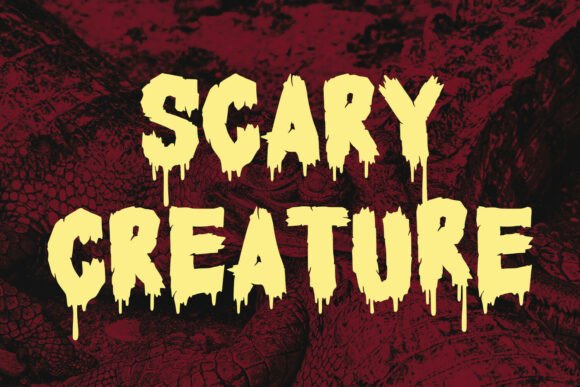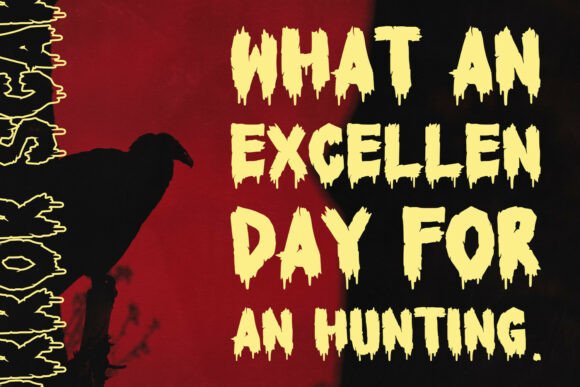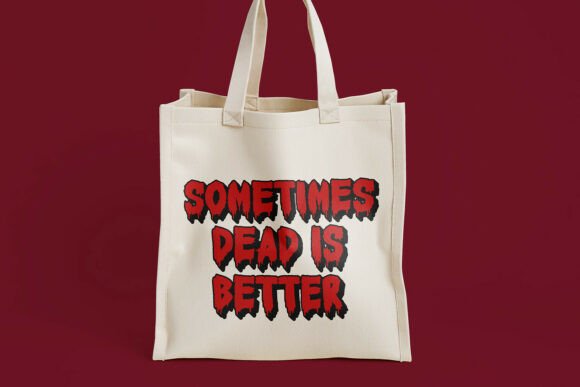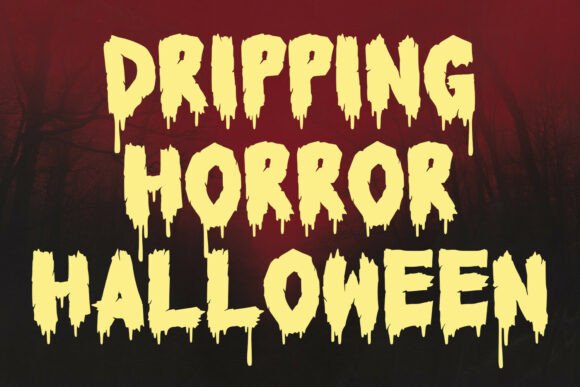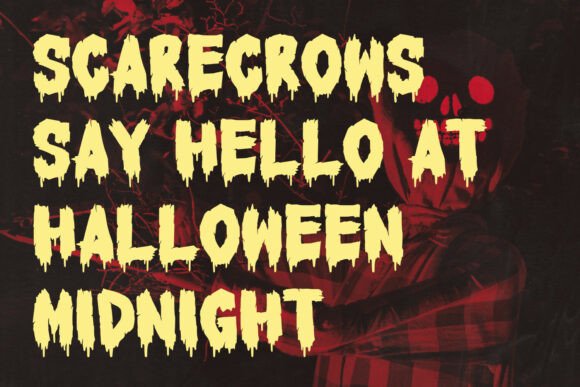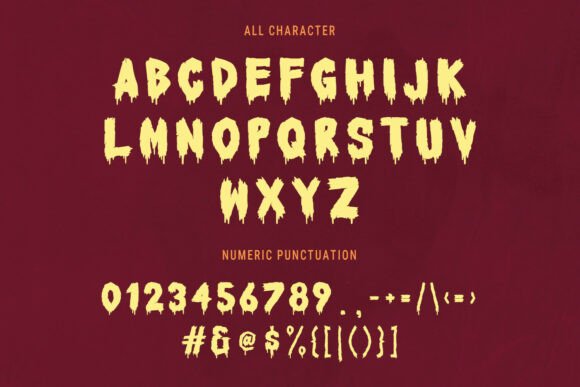
Introduction to Ivorm Font
As a designer, you’ve probably found yourself staring at a blank canvas, struggling to come up with the perfect design for your next creative project. The blank page stares back at you, taunting you with its emptiness. But what if you had a design resource that could bring your dark imagination to life? Enter the Ivorm Font, a bold horror dripping display font that’s guaranteed to send shivers down your spine.
With its thick, heavy strokes and melting drip details, the Ivorm Font perfectly captures the essence of gore, slime, and horror. Whether you’re working on a Halloween poster, a scary movie title, or a haunted house flyer, this font is sure to add instant shock value and a terrifying atmosphere to your design.
- Unique, modern design style that sets it apart from other fonts, making it perfect for designers seeking a distinctive look.
Honest Review: Ivorm Font
I recently had the chance to work with the Ivorm Font on a creative project, and I was excited to see how it would perform. Overall, I was quite impressed with the font’s capabilities.
- ✨ High quality design: The Ivorm Font has a clean and modern design that makes it perfect for a variety of creative projects.
- ⚠️ Limited character set: While the font has a wide range of characters, it’s not as extensive as some other fonts I’ve worked with.
- ⚠️ Not ideal for small text: The font can be a bit difficult to read when used for small text, so it’s best to use it for larger headings and titles.
Overall, I was really impressed with the Ivorm Font, and I would definitely recommend it as a design resource for any creative project. With a little bit of creativity, you can work around its limitations and get some amazing results.
Use Ivorm Font on a transparent background to create a clean and modern design. Experiment with different font sizes, colors, and styles to create unique and eye-catching graphics.